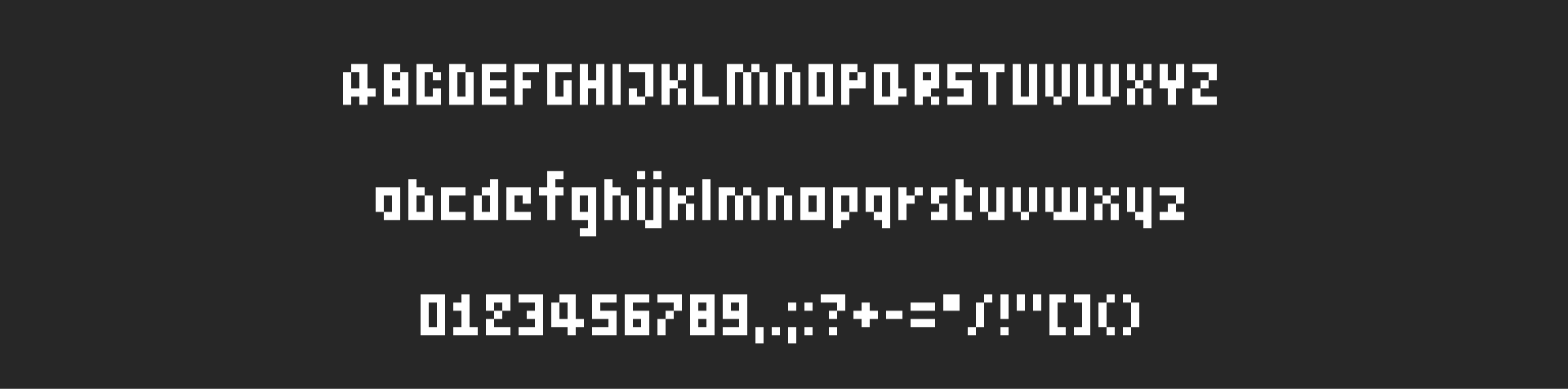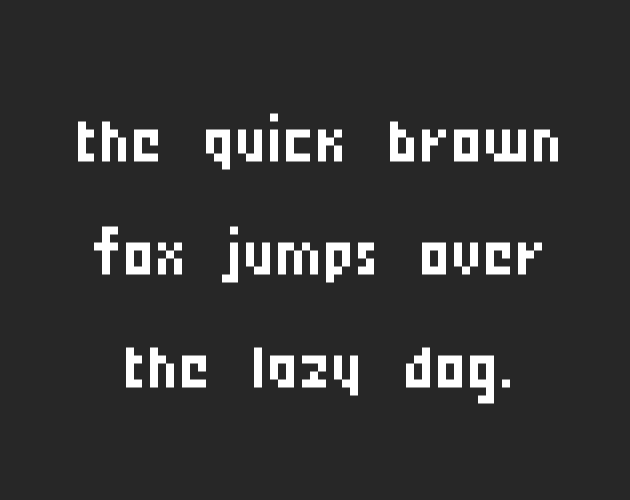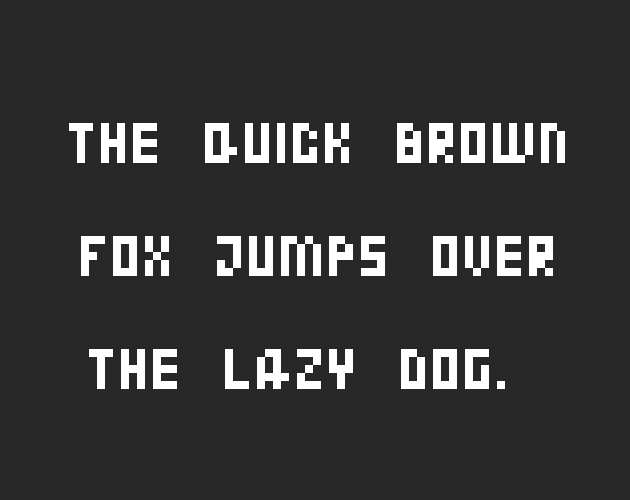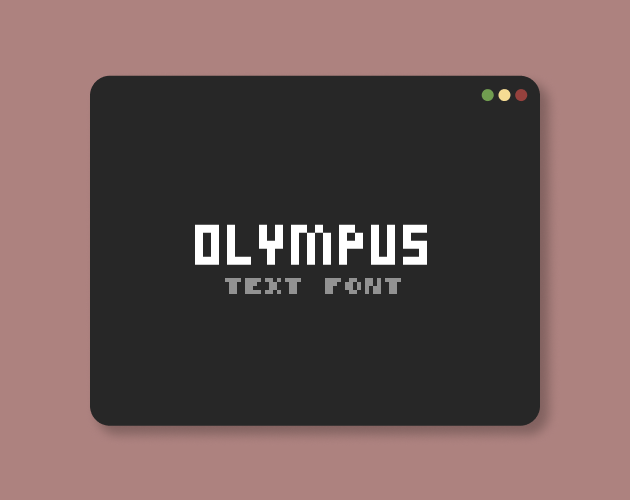
Pixel Font - OLYMPUS
OLYMPUS is a 5px tall pixel font!
Full Character Set:
ABCDEFGHIJKLMNOPQRSTUVWXYZ
abcdefghijklmnopqrstuvwxyz
0123456789,.;:?+-=*/!"[]()